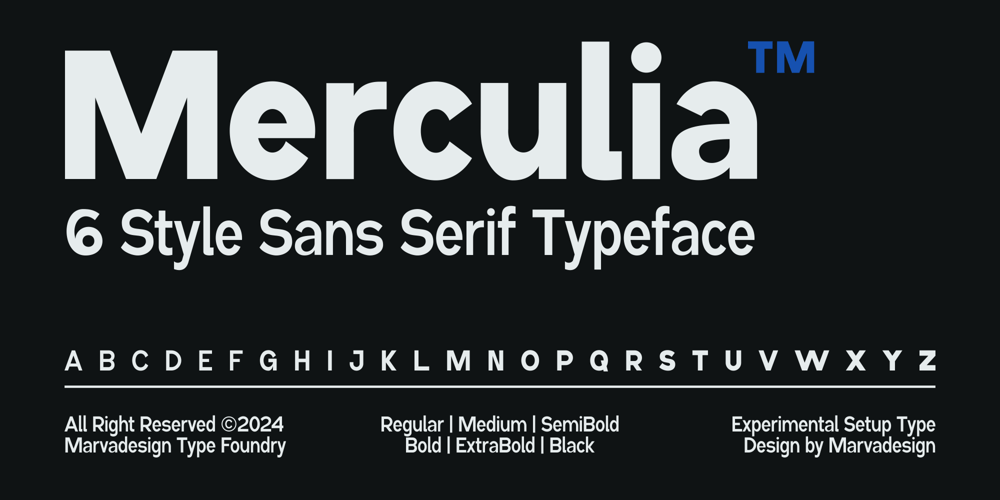
Merculia
Merculia font
Merculia Font Family was designed by Febrie Setiawan and published by Marvadesign. Merculia contains 6 styles and family package options. Introducing Merculia is a sans serif font designed with a clean and modern aesthetic. It comes in six distinct styles: Regular, Medium, Semibold, Bold, ExtraBold, and Black, offering extensive versatility for various design needs. Merculia features variable font capabilities, allowing designers to dynamically adjust the font weight to suit project needs.Modern Design With its clean lines and elegant forms, Merculia offers a contemporary and professional look.Regular The balanced base style, ideal for body text or paragraphs.Medium Slightly thicker than regular, providing a stronger accent without losing readability.SemiBold With more pronounced thickness, suitable for emphasizing important text.Bold Thick and prominent, perfect for headlines and subheadings.ExtraBold Even thicker, delivering significant visual impact.Black The maximum thickness, best used for design elements requiring strong attention.